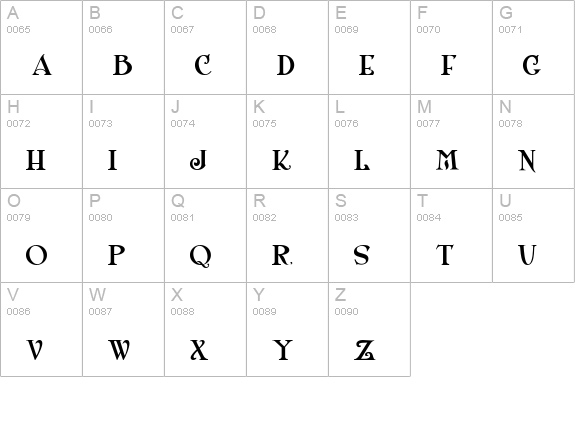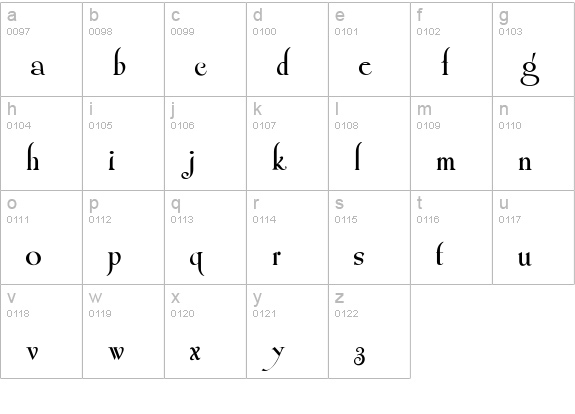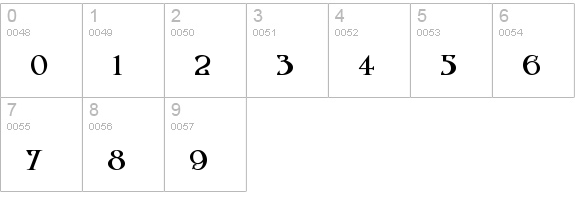
Shangri La NF Font Details
Shangri La NF font is a beautifully crafted typeface that exudes elegance and sophistication. Its unique design features delicate curves and intricate details that make it perfect for adding a touch of luxury to any project. Whether you're designing a wedding invitation, a branding project, or a poster, this font will elevate your work to the next level. The best part? Shangri La NF font is available for free download at FontsMarket.com. This means you can easily access this stunning font without having to spend a dime. Don't miss out on the opportunity to enhance your designs with this exquisite typeface. Download Shangri La NF font today and let your creativity shine!